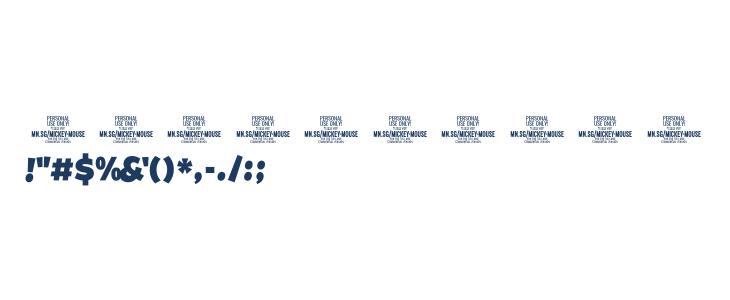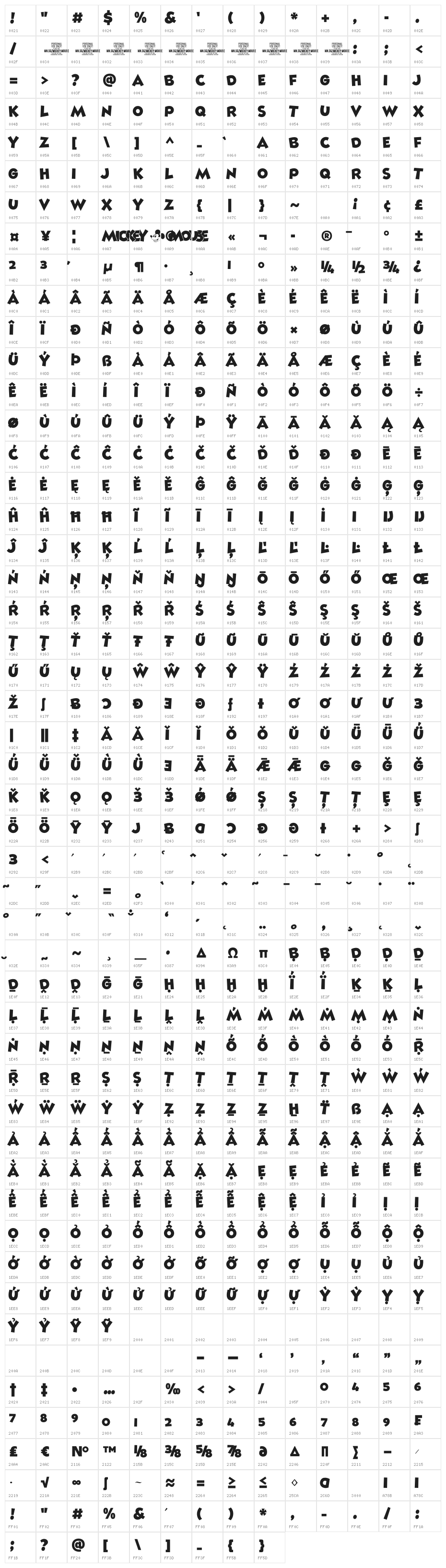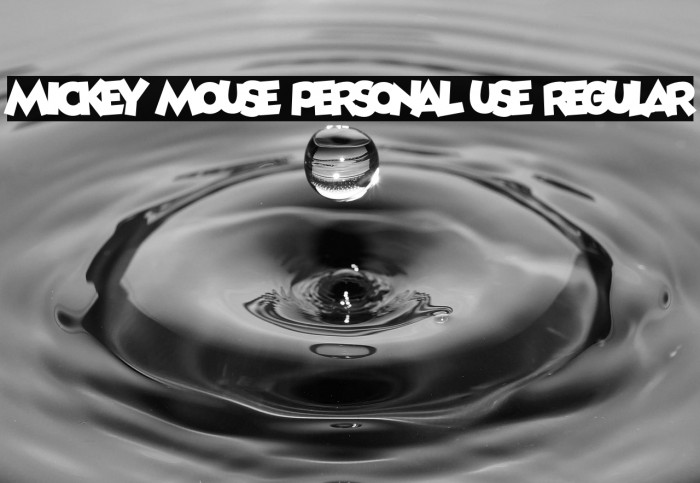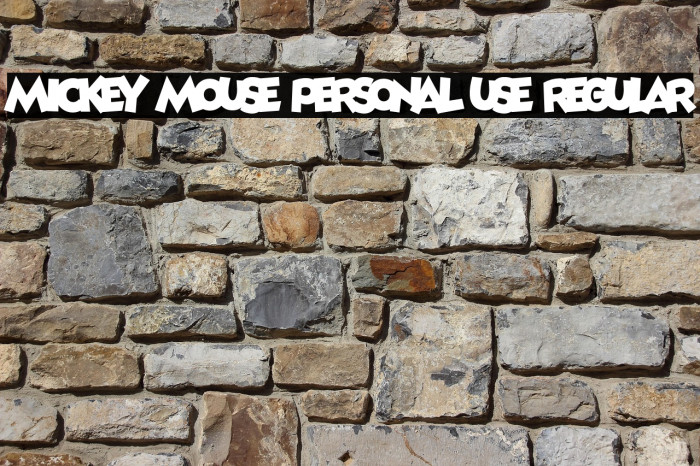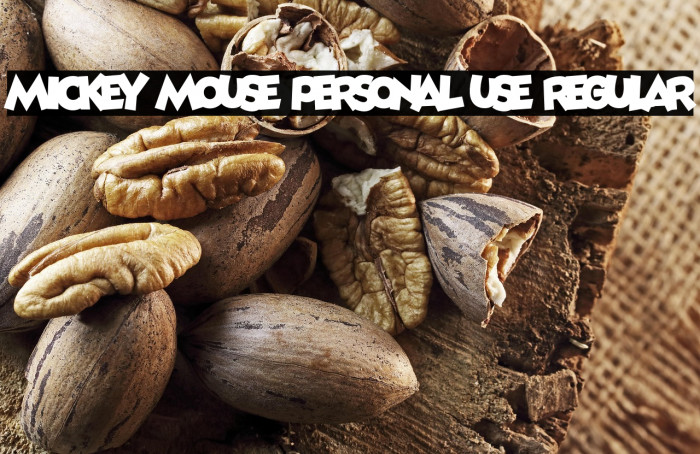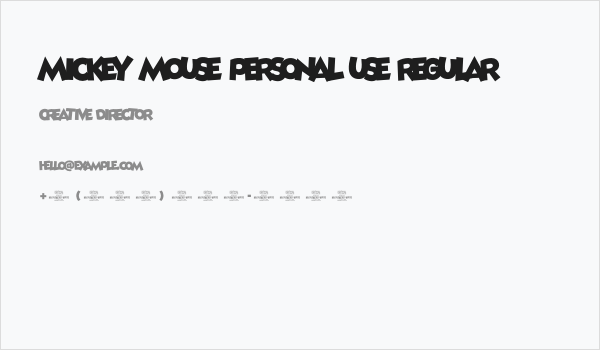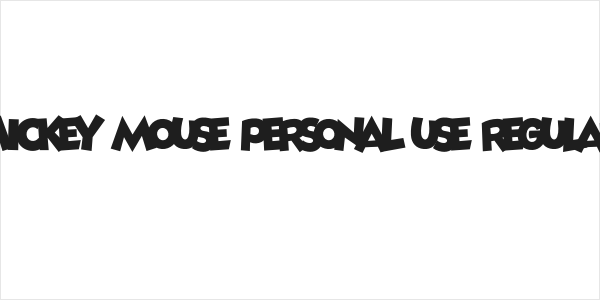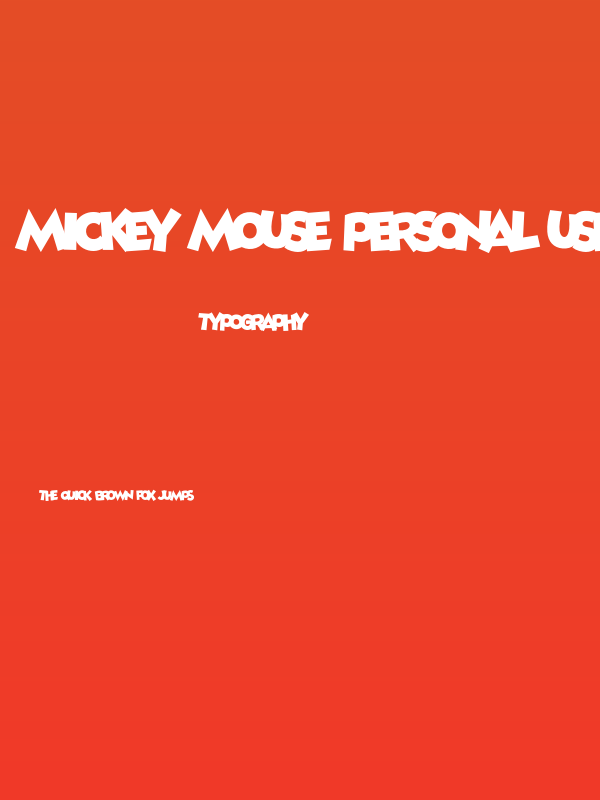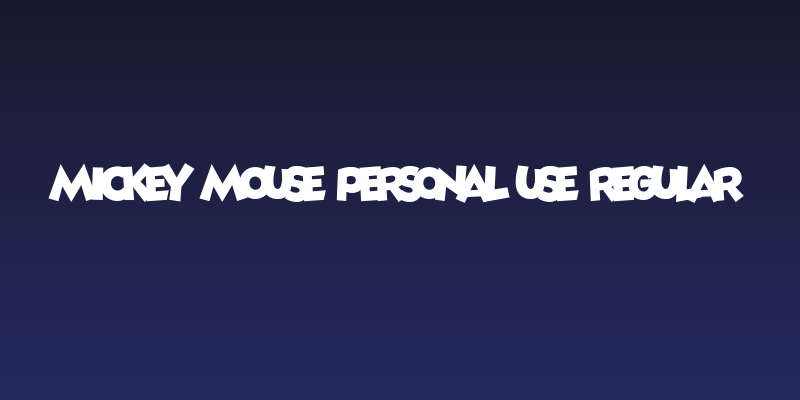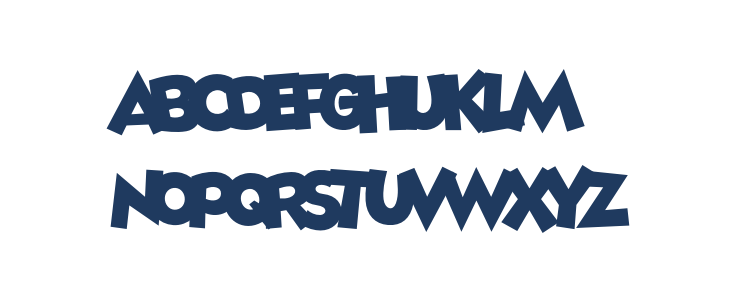
Mickey Mouse PERSONAL USE Regular Font
Mickey Mouse PERSONAL USE Regular Description
This font features bold, playful characters with a whimsical and cartoonish style. The letters are thick and have a slightly irregular shape, giving them a lively and energetic appearance. The uppercase and lowercase letters maintain a consistent weight, contributing to a cohesive look. The numbers and special characters follow the same playful design, making them ideal for creative projects. The font's boldness and unique style make it stand out, capturing attention with its fun and dynamic presence.
| Overall Style | Playful, Cartoonish, Energetic |
| Proposed Projects | Ideal for children's books, comic strips, playful branding, and party invitations. |